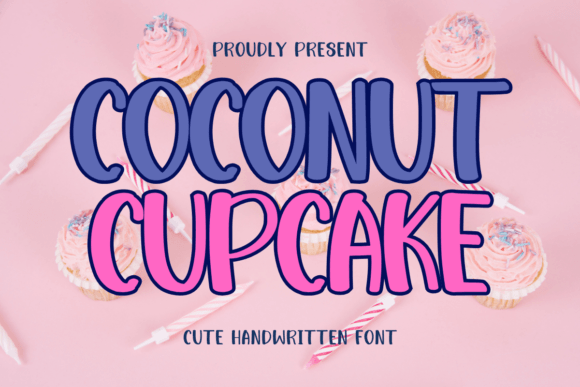
**Dive into the World of Whimsy with Coconut Capcake Font: A Delightful Handwritten Creation**
Indulge in a realm of playful creativity with Coconut Capcake Font, a charming handwritten font that will ignite your imagination. Its delightful strokes and vibrant energy make it the perfect companion for your creative adventures, whether you're crafting cheerful mugs, trendy t-shirts, eye-catching posters, heartfelt quotes, or personalized greeting cards.
Immerse yourself in a symphony of visual delight as you explore the boundless possibilities of Coconut Capcake. Its whimsical style effortlessly adds a touch of magic to tote bags, transforming them into enchanting accessories. Unleash your creativity on packaging designs, creating packages that exude a unique charm. Adorn pillows with heartfelt messages, adding a cozy touch to your living space.
**Crafted with Care for Your Creative Endeavors**
Masyafi Studio, the visionary minds behind Coconut Capcake, have meticulously crafted each letterform to capture the essence of joy and wonder. This font family, belonging to the Display category, empowers you to make a bold statement. Let your words dance across the page or screen with an irresistible allure that captivates your audience.
**Endless Applications for Your Creative Soul**
With Coconut Capcake Font as your creative ally, the possibilities are limitless. Embrace the art of visual storytelling as you weave enchanting narratives on mugs, greeting cards, and posters. Transform everyday items into expressions of your unique style.
**A Font Symphony Awaiting Your Creative Touch**
Every stroke, every curve, every letter of Coconut Capcake Font is a testament to the power of creativity. Embrace the chance to infuse your projects with a touch of whimsy and charm. Download Coconut Capcake Font today and unlock a world of creative possibilities. Let your imagination run wild and create masterpieces that resonate with joy and delight.